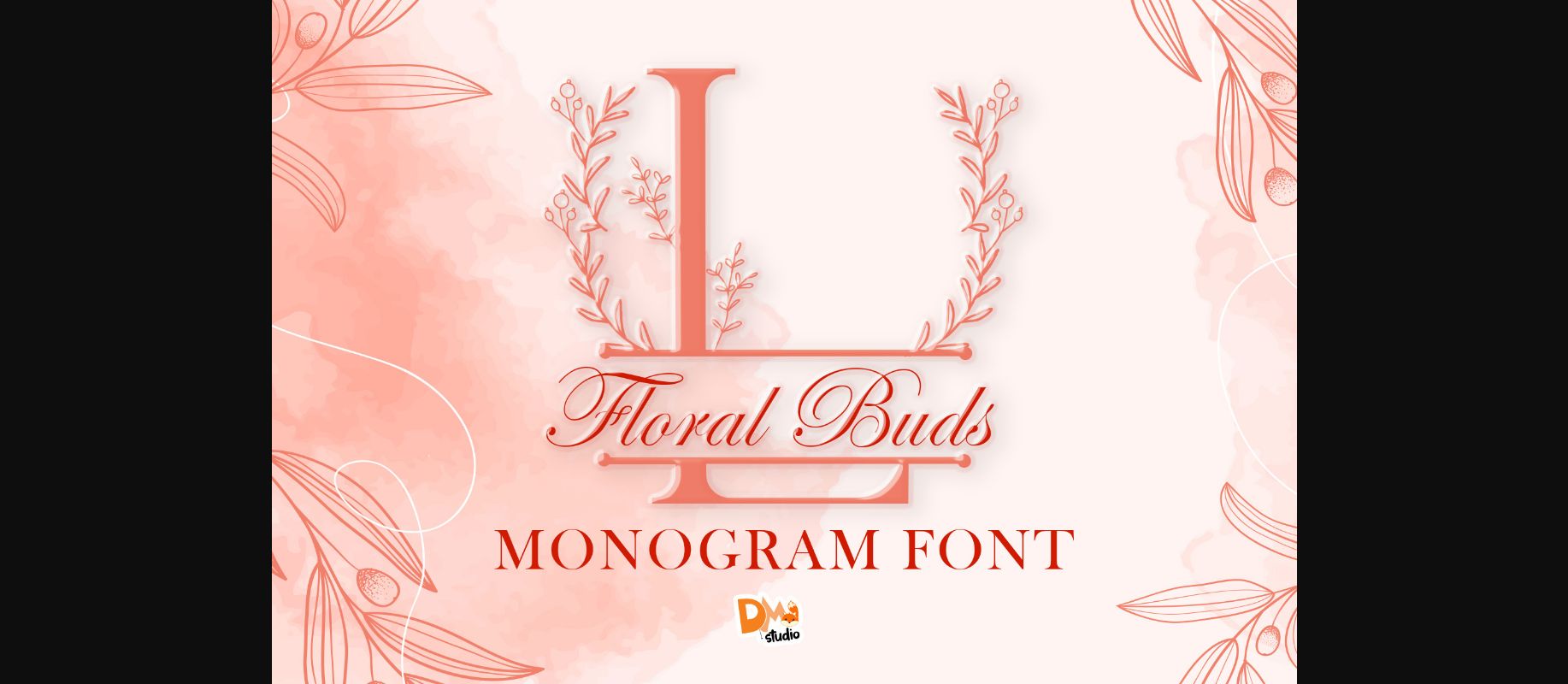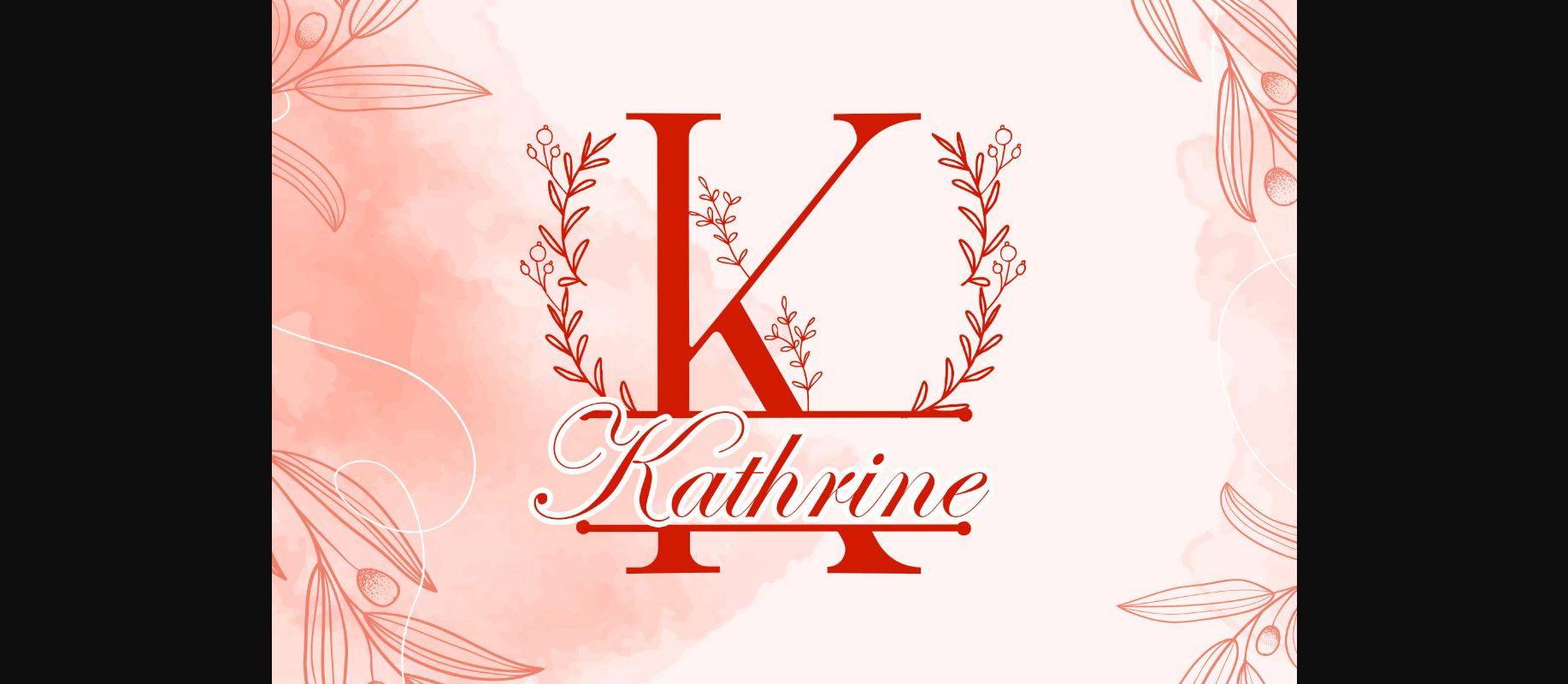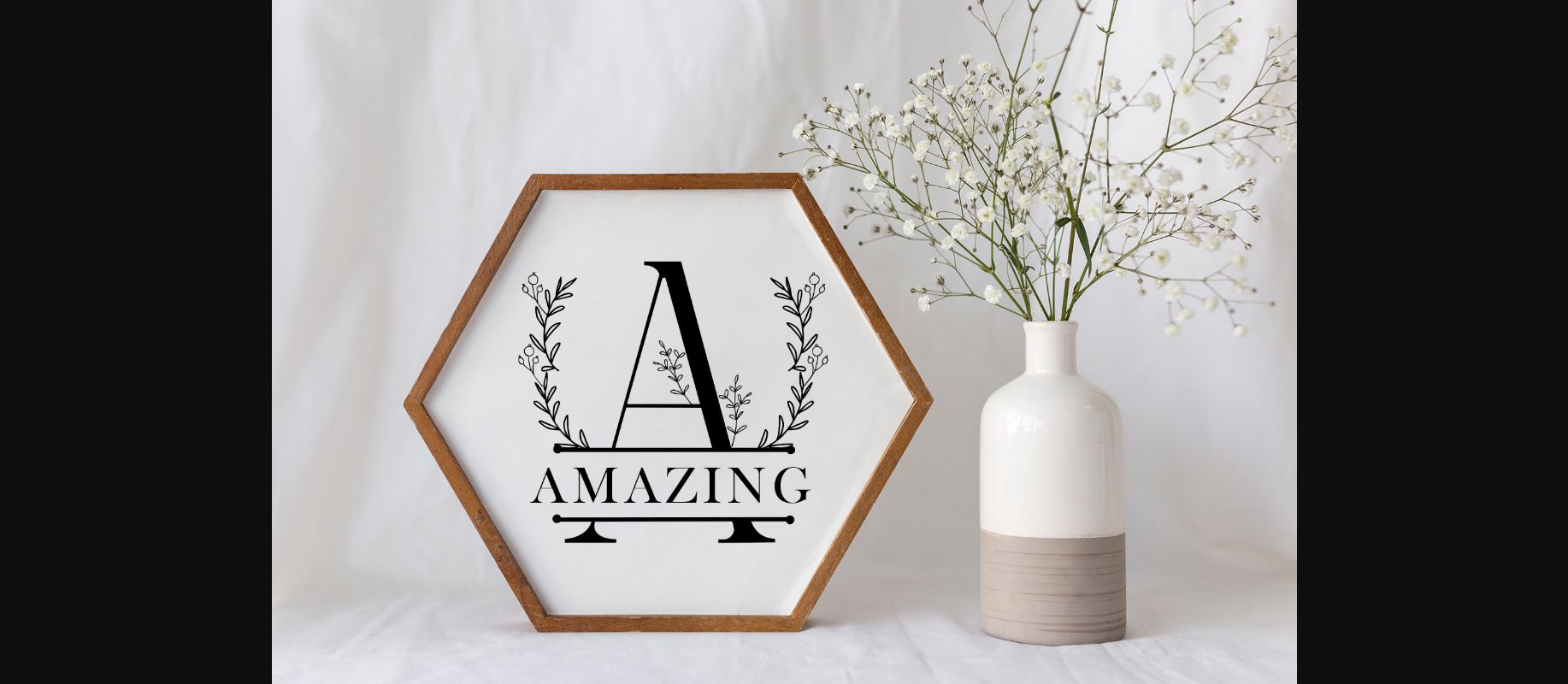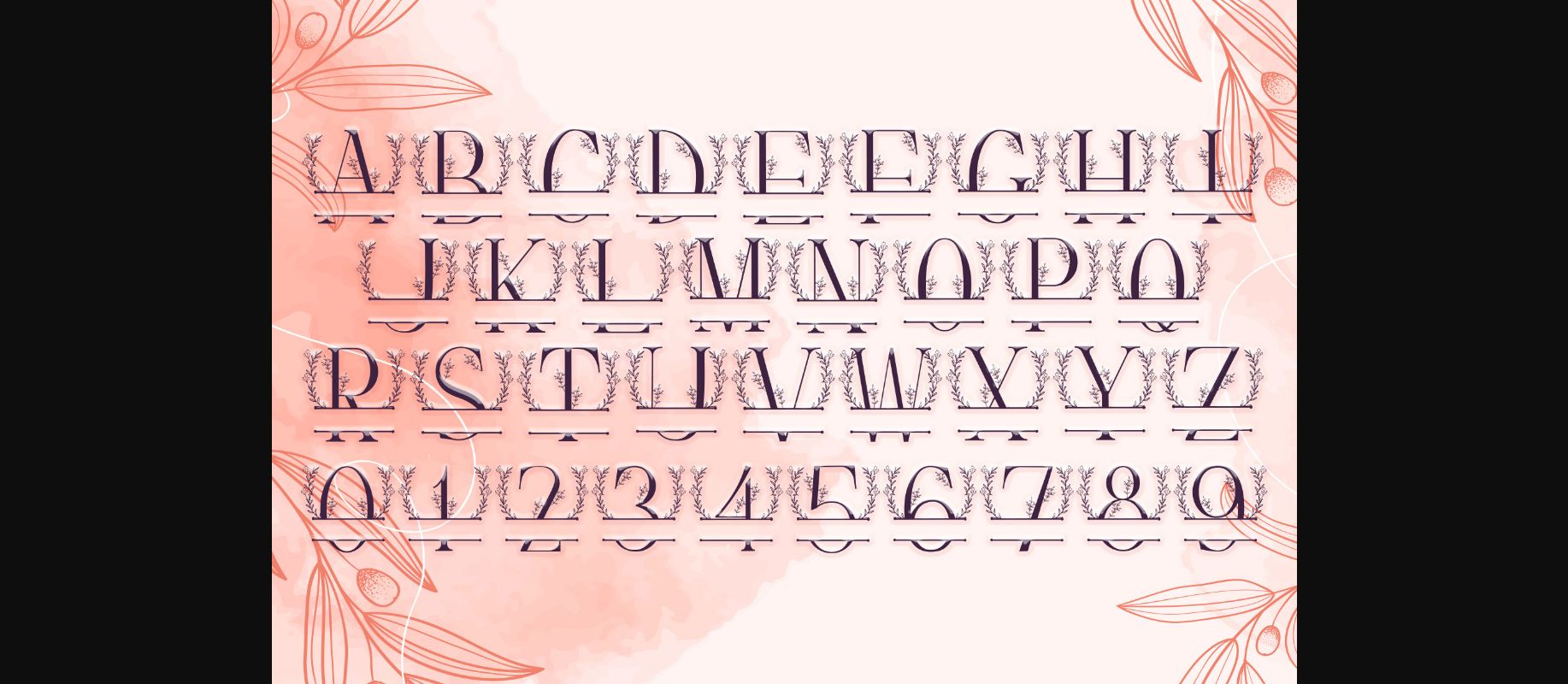
About Floral Buds Monogram Font
Floral Buds Monogram is a beautiful decorative font. Add this romantic and lovely looking font to each of your love letters, wedding invitations or favorite design ideas, and you will be astounded by the outcome.